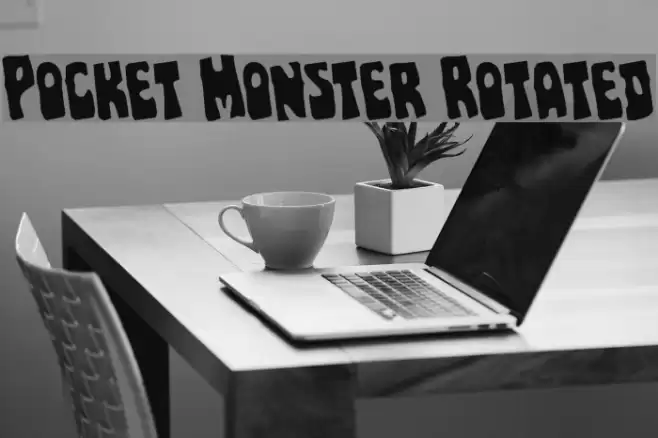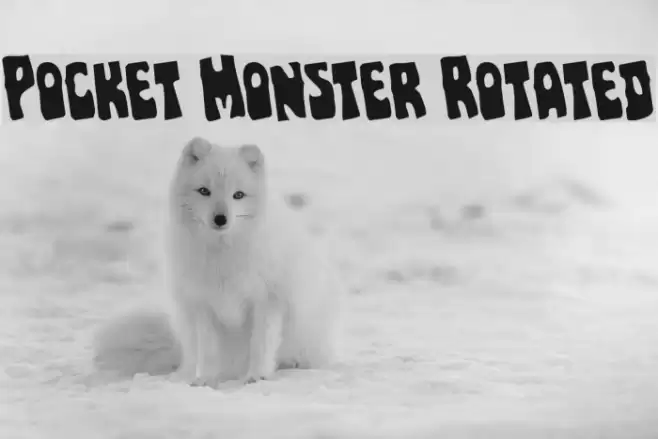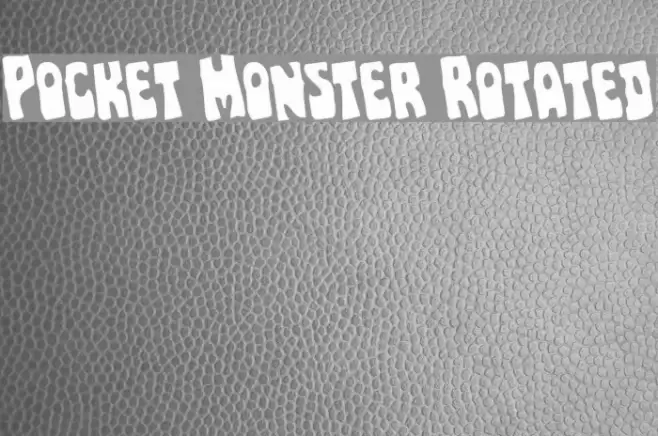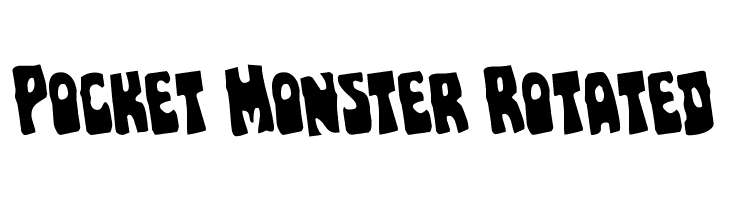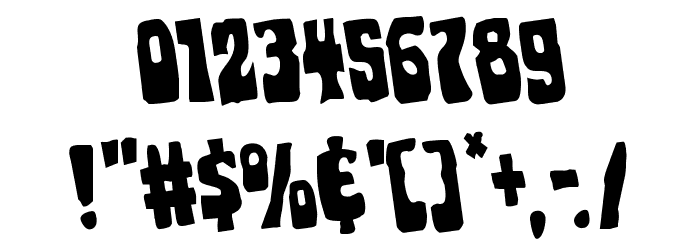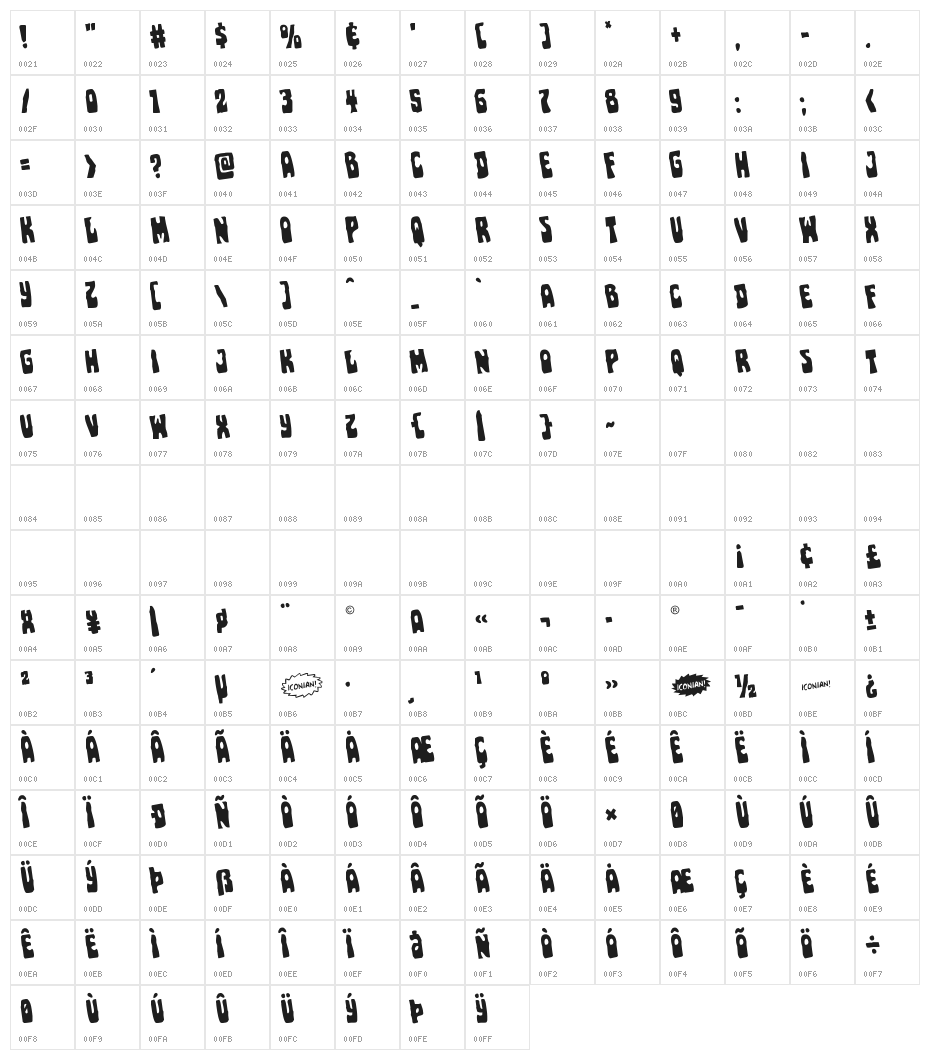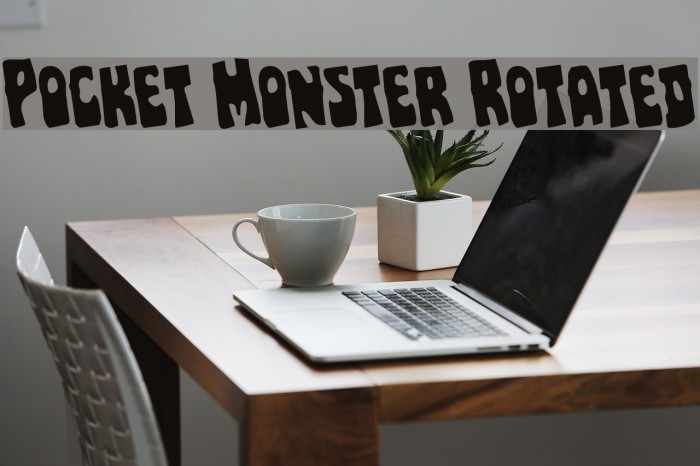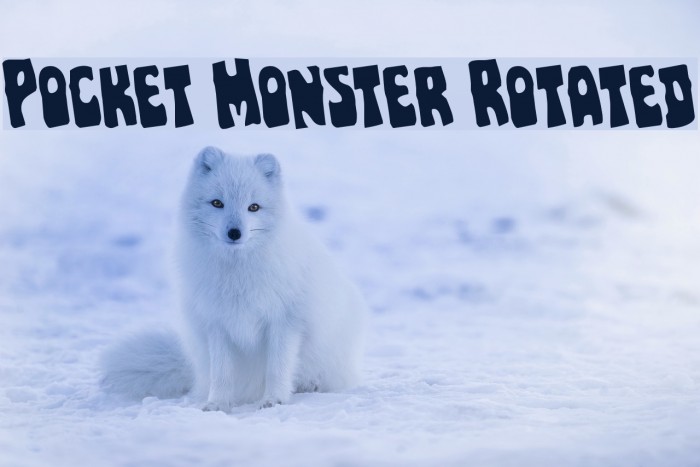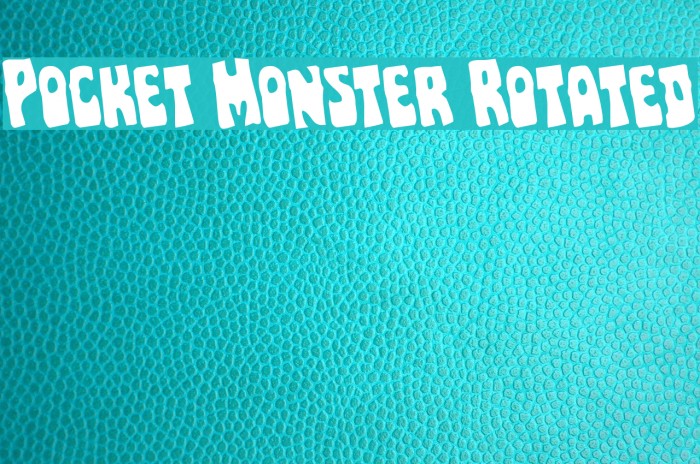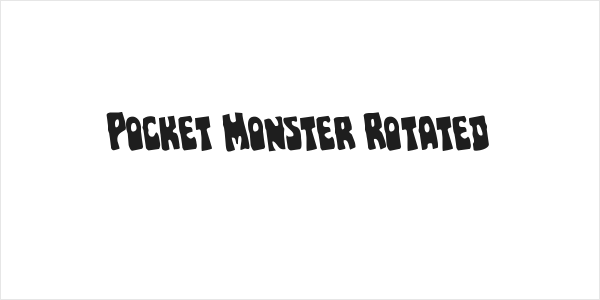
Pocket Monster Rotated Font
Pocket Monster Rotated Description
This font features a bold and playful design with a quirky, cartoon-like appearance. The letters are thick and have an irregular, organic shape that gives a sense of movement and energy. The uppercase and lowercase letters maintain a consistent style, with rounded edges and a slightly uneven baseline, adding to the whimsical feel. The numbers and special characters are equally bold and maintain the same playful aesthetic, making them suitable for creative and informal projects.
A bold, playful font with a cartoon-like, energetic style from Horror fonts.
- Proposed Projects: Ideal for children's books, comic strips, playful branding, and creative posters.
- Overall Style: Playful, Cartoon-like, Energetic